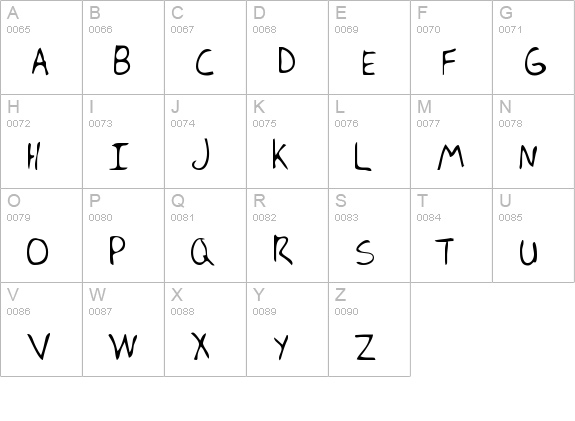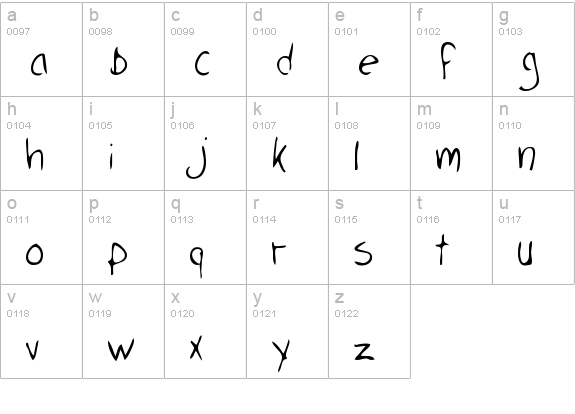
HerricksHand Regular is the standard, neutral variant in the HerricksHand typeface family \xE2\x80\x94 well suited to general body text, paragraphs, and standard typographic work.
HerricksHand Regular font is a charming and versatile typeface that exudes a sense of elegance and sophistication. The flowing curves and unique letterforms of this font make it perfect for a wide range of design projects, from wedding invitations to branding materials. What sets HerricksHand Regular font apart is not only its timeless appeal but also the fact that it is available for free download at FontsMarket.com. This means that you can easily access and use this beautiful font in your projects without any cost, making it a valuable addition to your font library. With its clean and professional design, HerricksHand Regular font is sure to make a lasting impression on your audience. Whether you are looking to create a classic and refined look or add a touch of whimsy to your designs, this font has you covered. Download HerricksHand Regular font today and elevate your projects with its elegant charm.